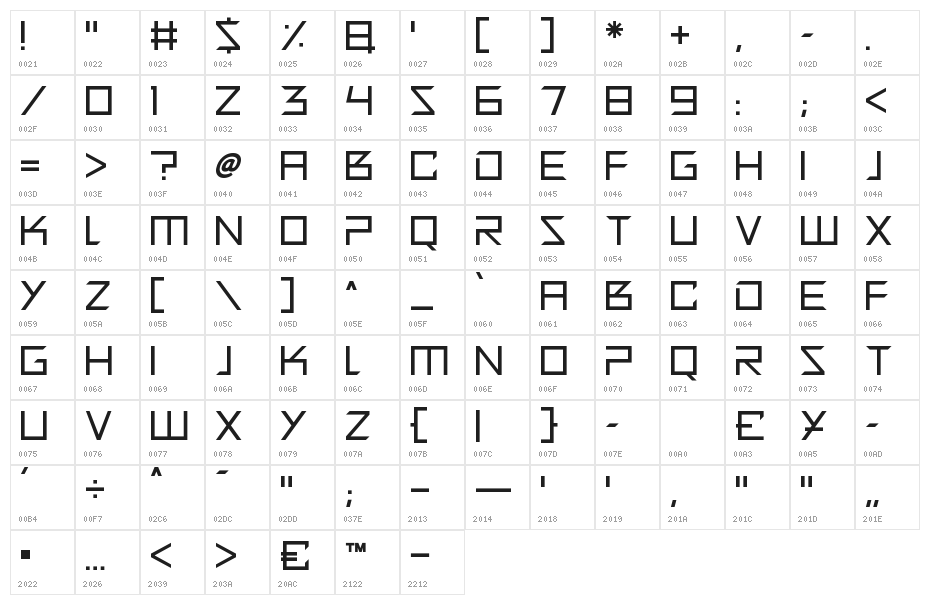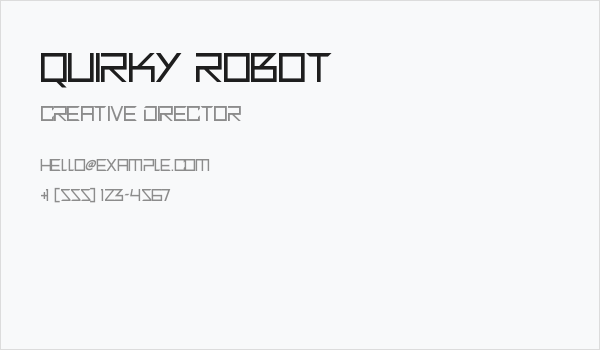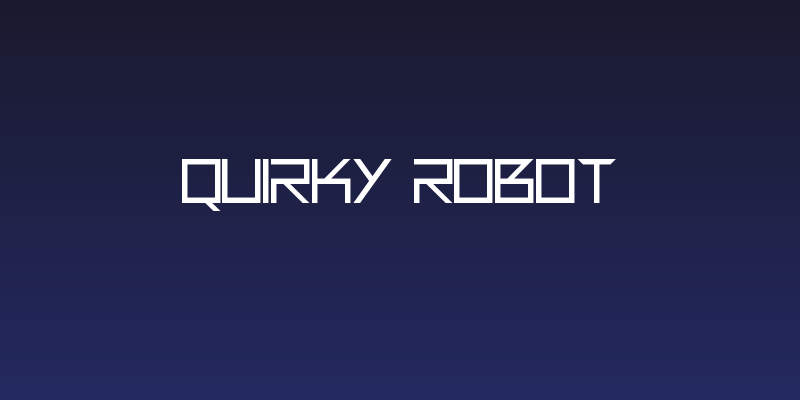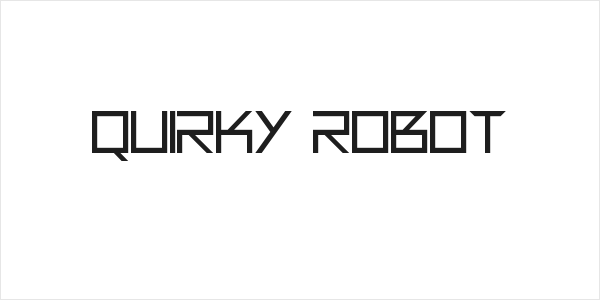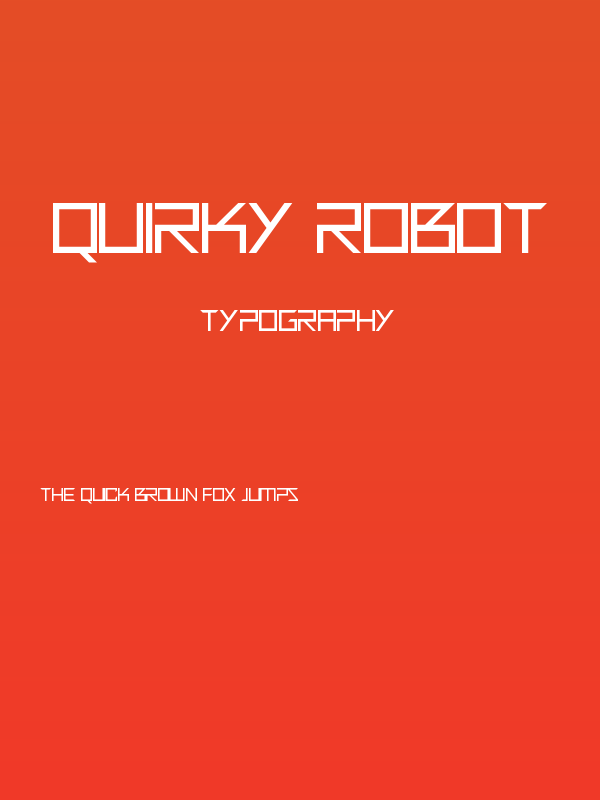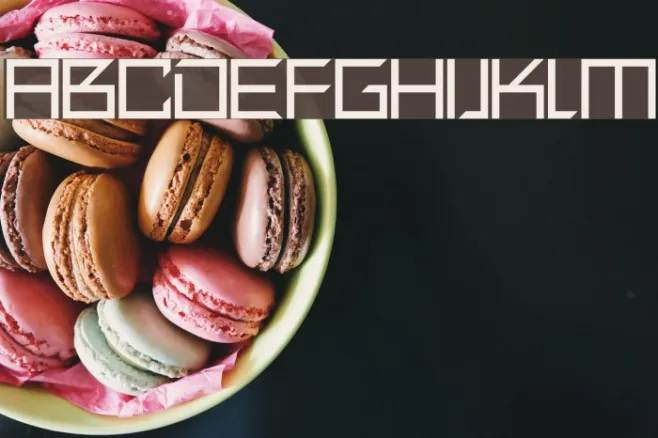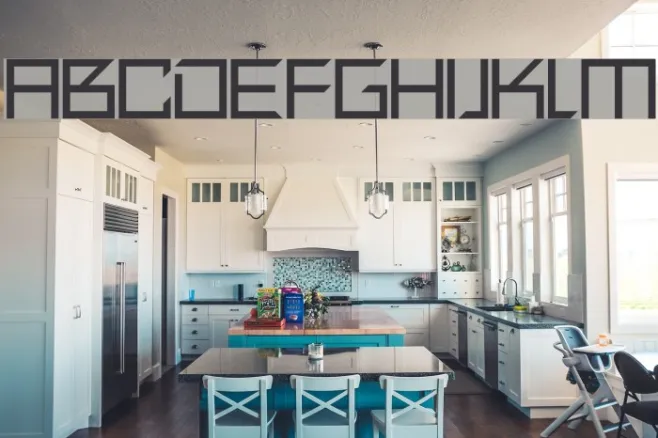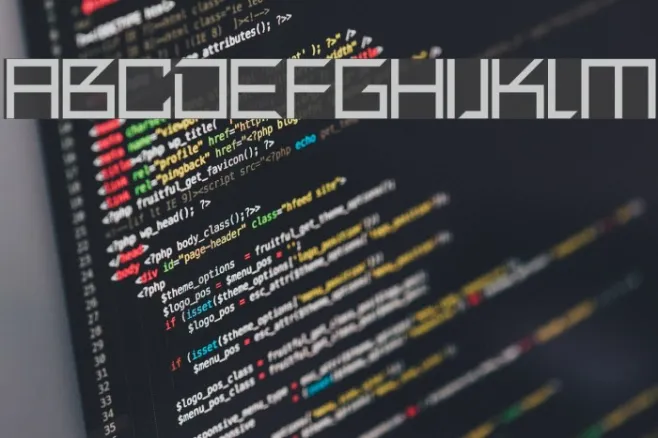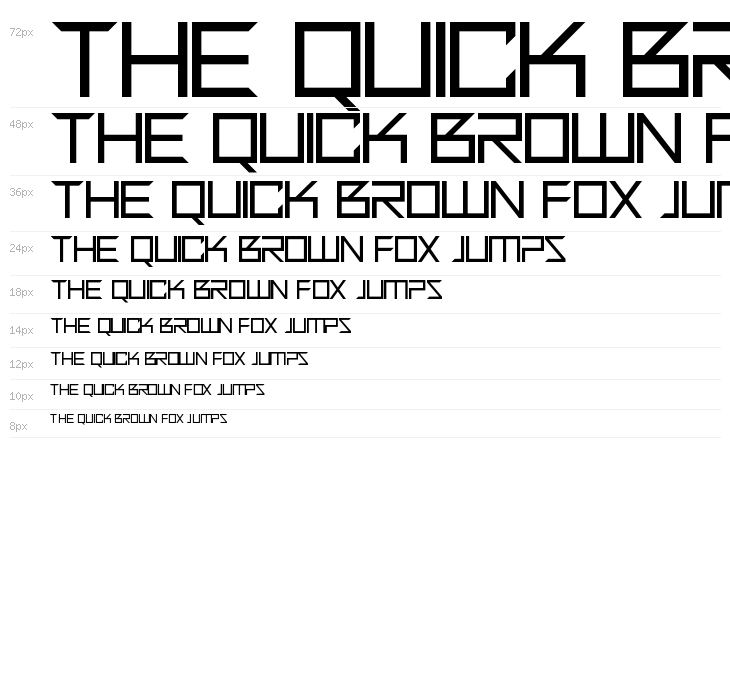
Quirky Robot Font
Quirky Robot Description
This font features a futuristic and geometric design, characterized by sharp angles and a mechanical aesthetic. The uppercase and lowercase letters maintain a consistent style with angular cuts and straight lines, giving it a robotic feel. The numerals and special characters follow the same design principles, ensuring uniformity across all glyphs. The font's structure is bold and impactful, making it suitable for attention-grabbing headlines or branding that requires a modern and tech-savvy appearance. Its unique style sets it apart from traditional fonts, offering a distinctive look that is both contemporary and edgy.
| Proposed Projects | Ideal for tech branding, sci-fi posters, video game titles, and modern logos. |